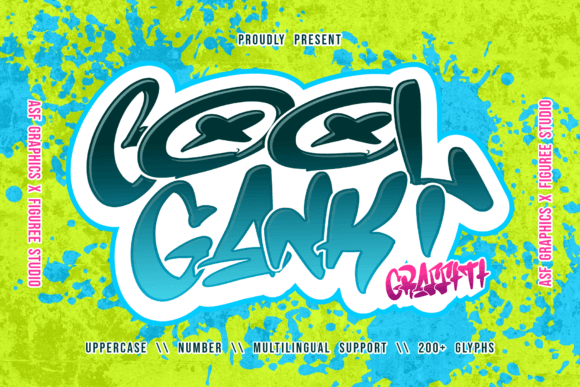
Introducing Coolgank Font: The Renegade of Typography, Unleash the Street Soul in Your Designs
In a world of conventional fonts, Coolgank emerges as a defiant rebel, a renegade that breaks free from conformity and ushers in an era of urban authenticity. Inspired by the raw energy of graffiti art, Coolgank captures the rebellious spirit of the streets, transforming your designs into a canvas of urban artistry.
With its bold, expressive lettering, Coolgank is not just a font; it's a statement. Each stroke exudes an edgy attitude, a raw and untamed energy that demands attention. Its urban grit adds a touch of rebellion to your projects, making them stand out from the crowd.
Whether you're crafting posters that scream for attention, creating street art that reflects the pulse of the city, or designing urban-themed projects that capture the essence of the underground, Coolgank is your weapon of choice. It's the perfect font for projects that demand a touch of edginess, a hint of rebellion, and a whole lot of attitude.
So, if you're ready to break free from the mundane and embrace the renegade spirit of creativity, let Coolgank be your guide. It's the font that turns your designs into streetwise masterpieces, adding a rebellious flair and an artistic touch that will leave an unforgettable impact.